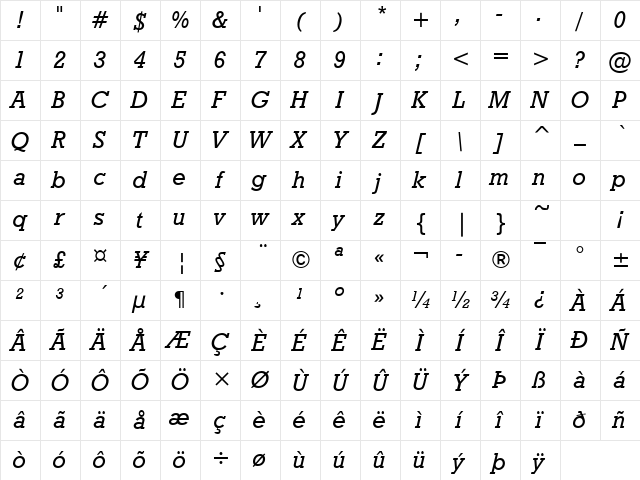
Granite Italic Free Font
Granite Italic
Design Context for Granite
Granite is a composed and adaptable typeface that performs quietly and consistently across a wide range of design contexts. The slanted form adds forward momentum and visual energy.
Pro Tip: Use Granite for emphasis, pull quotes, and subheadings where its slanted energy can add rhythm to the layout.